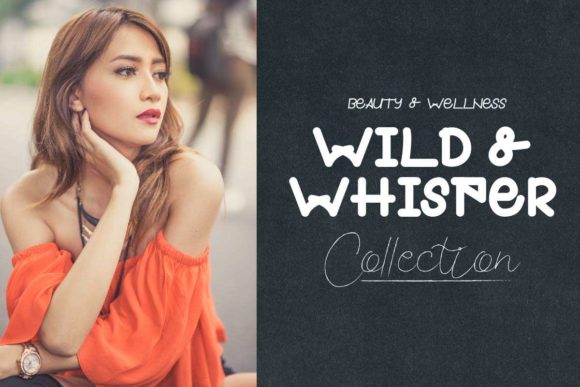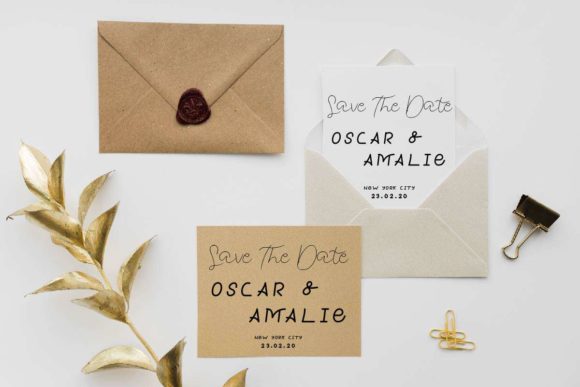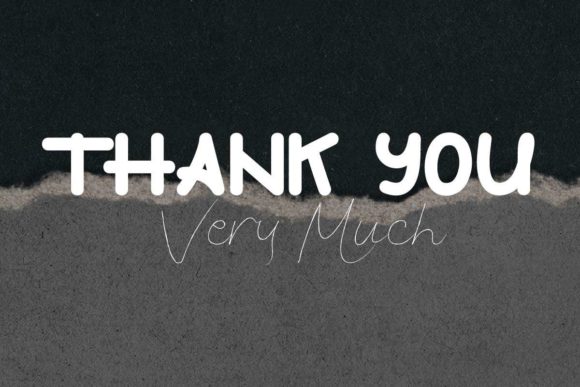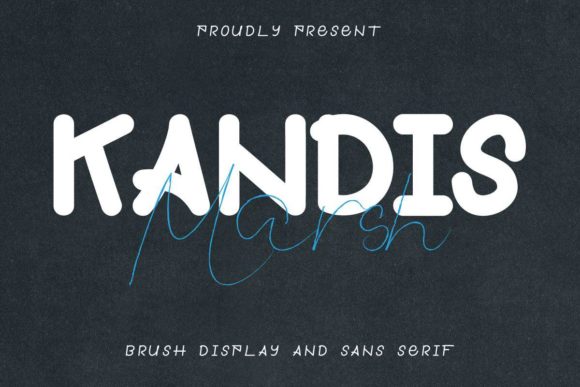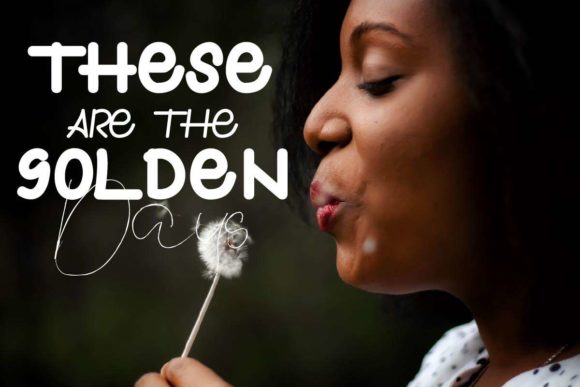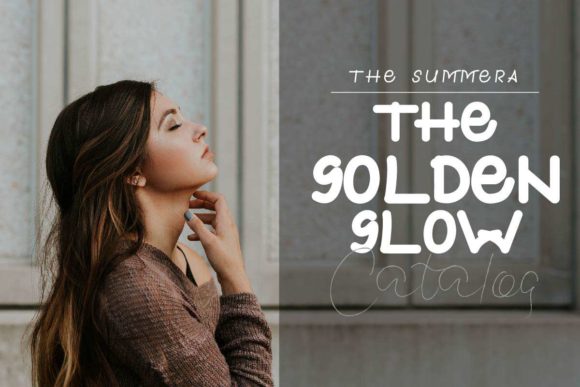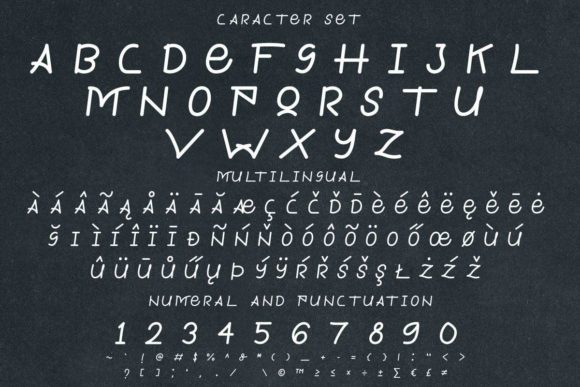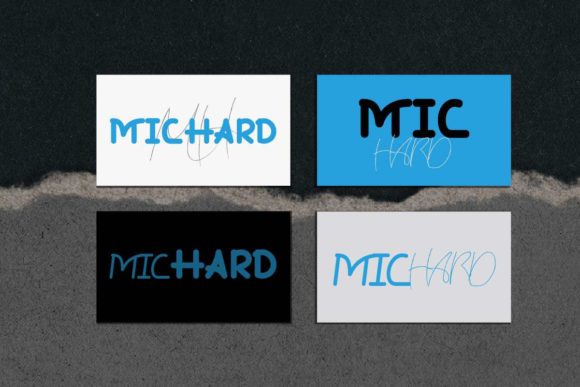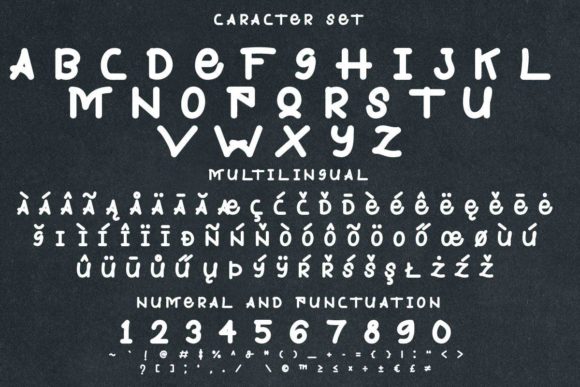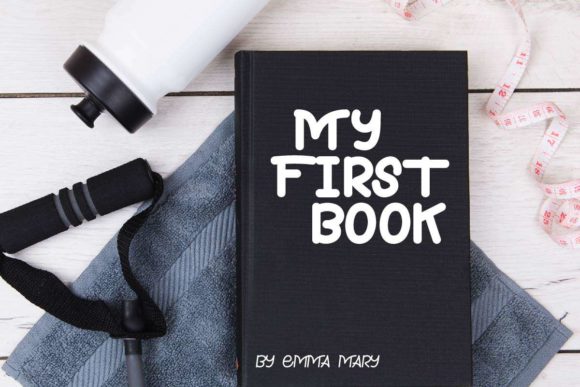
Kandis Marsh Font
About Kandis Marsh Font
Kandis Marsh feels equally charming and authentic. Clean and a little bit quirky, this font is the perfect fit for all of your logos, branding, social media, and crafty DIY projects.